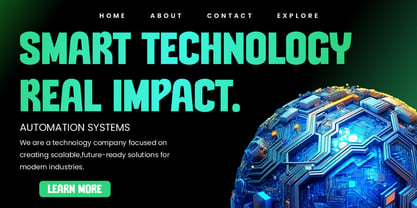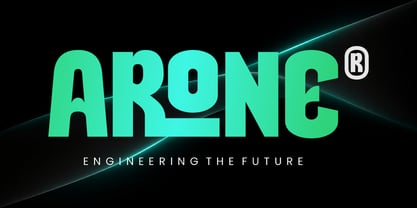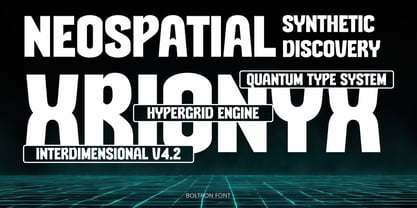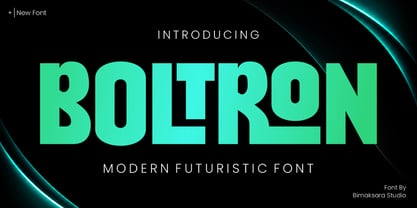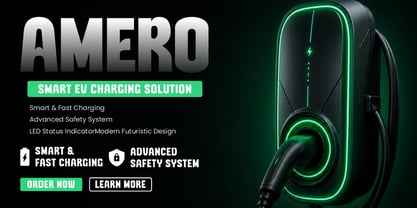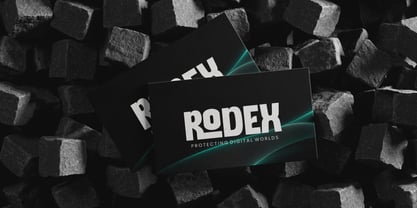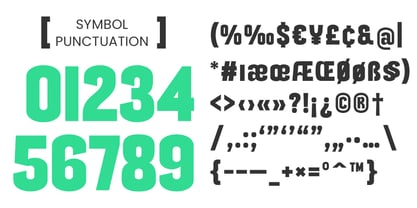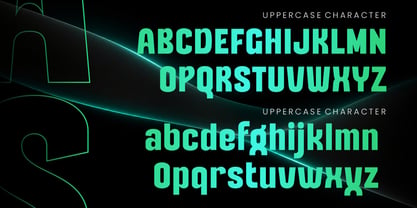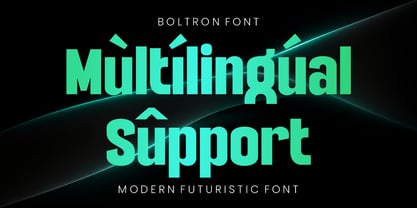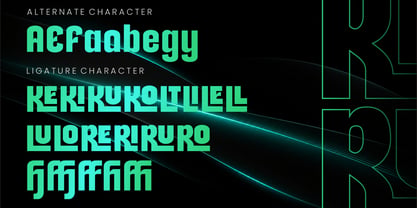
Boltron
BOLTRON – Modern Futuristic Logo Font
BOLTRON is a bold and modern futuristic display font designed for logos, branding, technology projects, gaming titles, esports identities, automotive brands, packaging, posters, and digital interfaces. Featuring strong geometric shapes and a sleek sci-fi aesthetic, this typeface delivers a powerful visual impact while maintaining excellent readability.
Whether you're creating a cutting-edge startup identity, futuristic merchandise, cyber-themed artwork, or modern branding projects, BOLTRON provides a distinctive and professional look that stands out from the crowd.
Features
• Uppercase & Lowercase Characters
• Numbers & Punctuation
• Stylish Ligatures
• Alternate Characters
• Multilingual Support
• Logo Design
• Technology Branding
• Esports & Gaming Projects
• Automotive Branding
• Posters & Headlines
• Packaging Design
• Social Media Graphics
• Futuristic UI/UX Concepts
Bring your creative vision into the future with BOLTRON, a modern display font built to make bold statements.